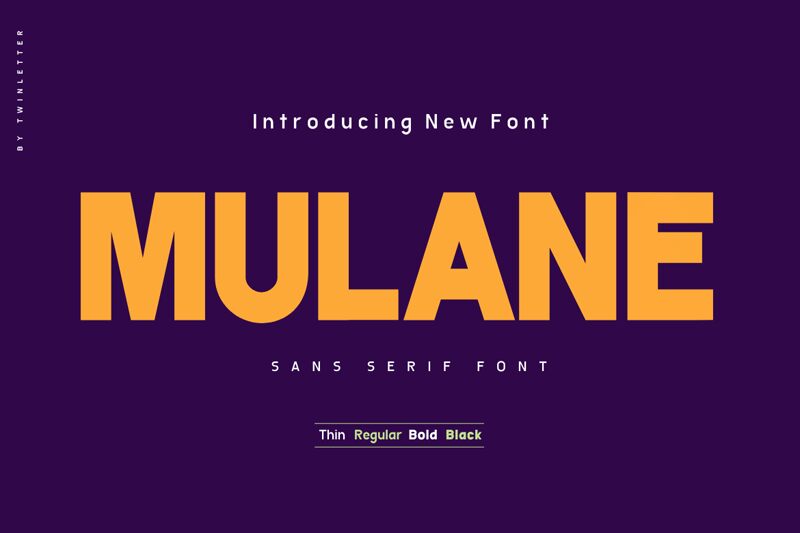
MULANE Bold Personal Use
MULANE Bold is a modern sans serif font with a bold weight and semi-expanded width, designed by twinletter. With its clean and simple lines, MULANE Bold is perfect for creating eye-catching headlines, titles, and logos that demand attention. Its boldness provides a strong presence while its semi-expanded width adds a touch of uniqueness to any design. This versatile font can be used in various projects ranging from branding materials to editorial layouts or even on websites and social media graphics. MULANE Bold is the ideal choice for those looking for a powerful yet elegant typeface that stands out from the crowd.